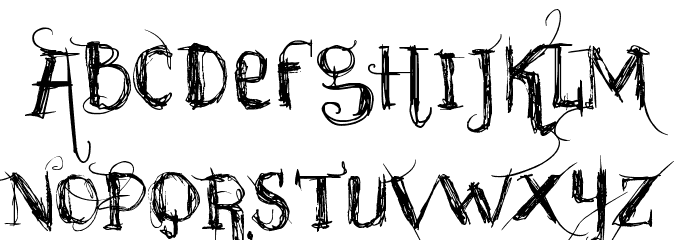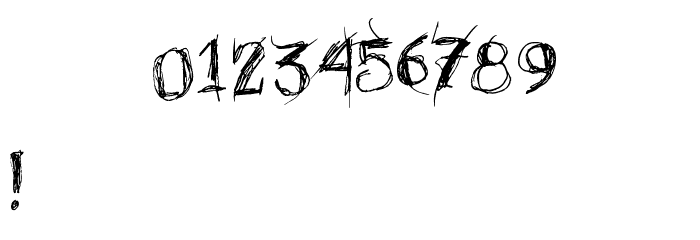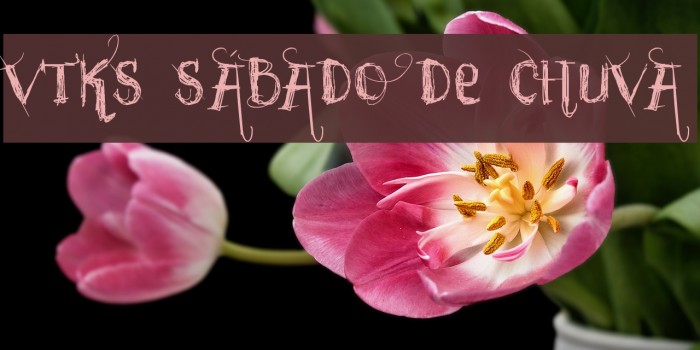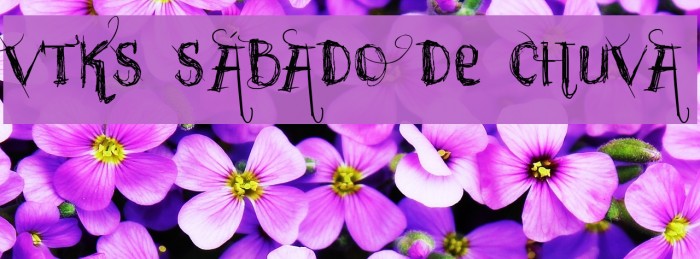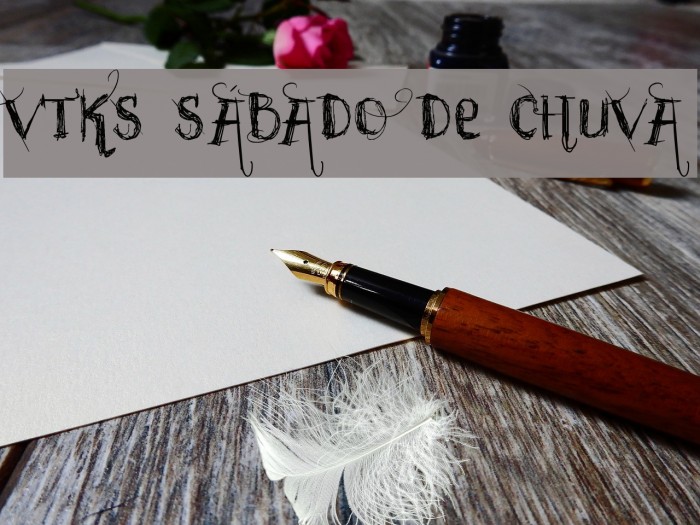
vtks sábado de chuva Font
This font features an intricate and artistic design, characterized by its decorative and somewhat chaotic appearance. The letters are adorned with swirling lines and sharp edges, giving it a unique, hand-drawn feel. The strokes vary in thickness, creating a dynamic and textured look. This font exudes a sense of mystery and creativity, making it ideal for projects that require a bold and unconventional style. The numbers and special characters maintain the same artistic flair, ensuring consistency across all elements.
A decorative, hand-drawn font with swirling lines and sharp edges.
- Proposed Projects: Ideal for artistic posters, album covers, creative branding, and event invitations.
- Use Case: Logos, Headlines, Artistic projects